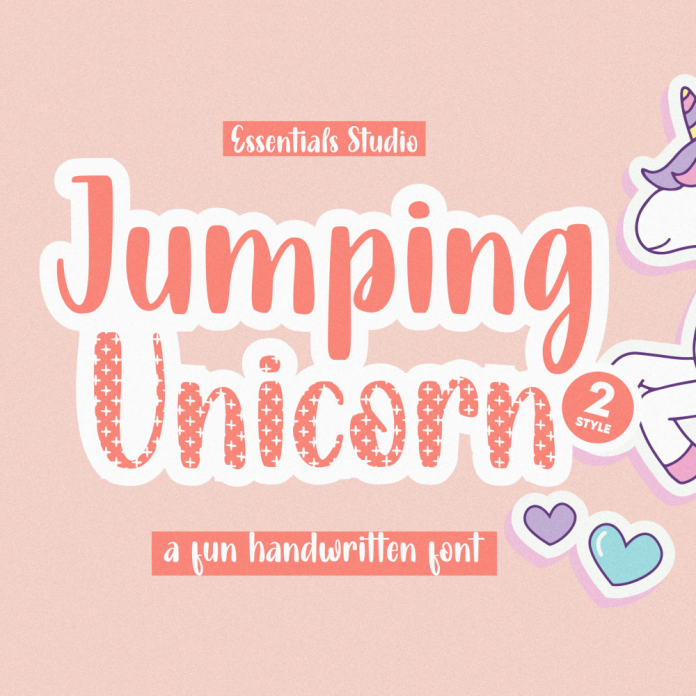
Jumping Unicorn is a cute and friendly 2 Style handwritten font. Whimsical and a bit quirky, this font will brighten up each of your designs. Add it confidently to your projects, and you will love the results. best for feminine crafty projects or SVG design businesses, Wedding Craft, Farmhouse decor and Crafts, logos, Branding, Marketing Materials, Social media graphics, or shirt design. This font come with heart connect and swash includes - upper + lowercase characters A-Z and a-z - numbers 0-9 - punctuation - Western European Language Support